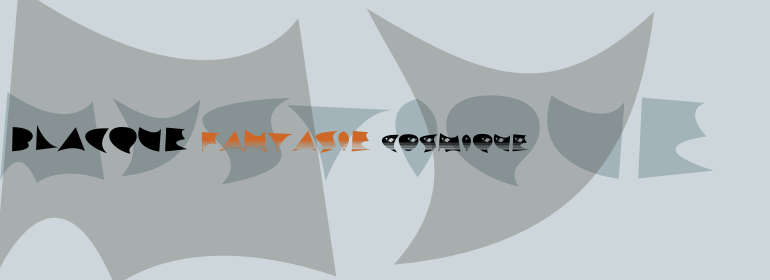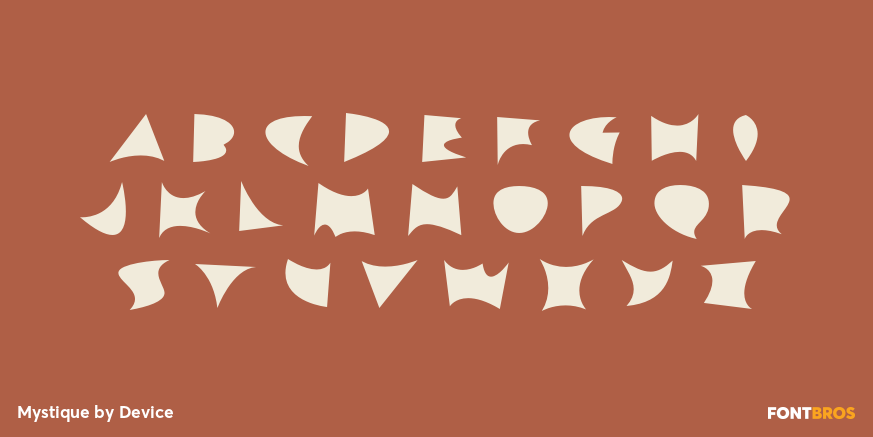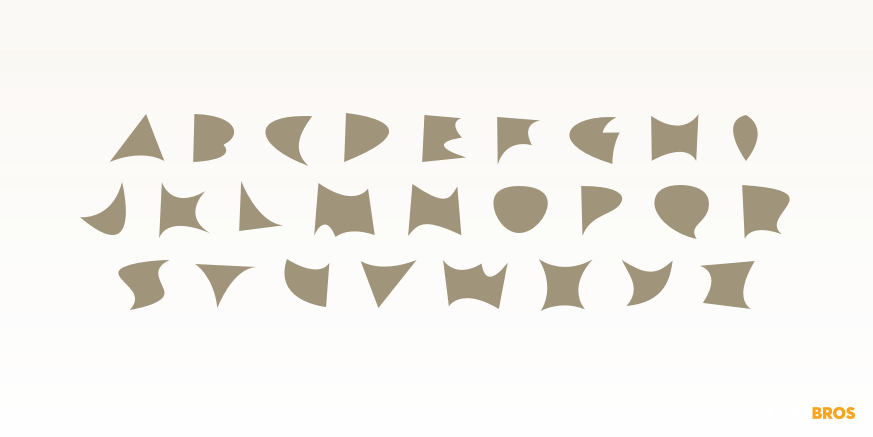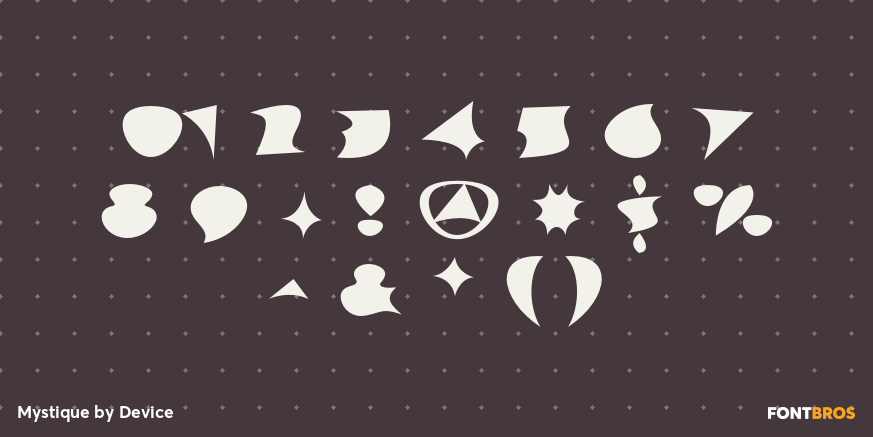
Mystique
Font Family by Device Fonts
Mystique is a three-style display family from Device with a distinctly retro-futuristic attitude. Tagged with 1940s through 1970s references as well as groovy, retro, futuristic, and special effect styling, it brings a cinematic, space-age mood that feels bold, decorative, and full of personality.
The family includes Mystique Fantasie, Mystique Cosmique, and Mystique Blaque, giving designers a small but expressive set of looks to explore. Its stylized letterforms make it a strong choice for posters, album-inspired graphics, branding, packaging, titles, and other display work where you want a vintage-meets-cosmic impression rather than a neutral text face.